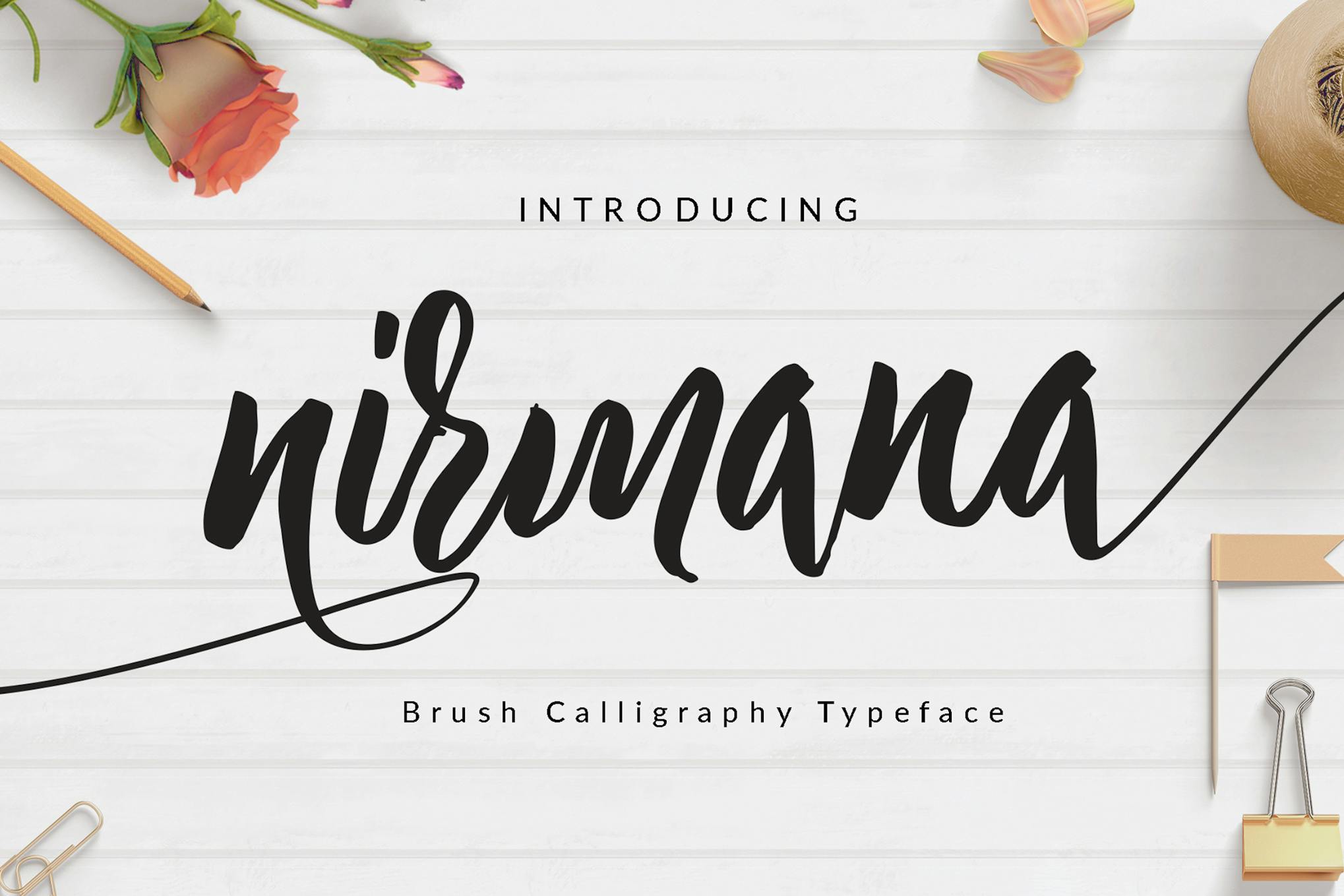
Nirmana Brush Font Wedding
The Nirmana Brush Font Wedding excels in artistic design applications including creative wedding invitations, artistic bridal branding, expressive ceremony logos, handcrafted product packaging, artistic business cards, creative portfolios, expressive greeting cards, artistic social media graphics, handcrafted event signage, and creative marketing materials. Its artistic brush style makes it perfect for projects requiring expressive elegance that communicates creativity and establishes artistic brand positioning with audiences seeking creative wedding experiences and handcrafted sophistication.
What makes the Nirmana Brush Font Wedding truly exciting is its exceptional ability to capture the artistic beauty and expressive elegance of creative weddings through masterfully crafted brush strokes. The font features flowing, brush-inspired letterforms with artistic flourishes and handcrafted proportions that create a distinctly creative appearance. Each character displays remarkable attention to artistic detail with expressive curves, creative connections, and handcrafted spacing that give text a beautifully artistic, hand-painted quality. The font's creative character and artistic rhythm create an atmosphere of expressive elegance while maintaining handcrafted sophistication and wedding authenticity.
The Nirmana Brush Font Wedding family typically includes regular weight with extensive character coverage, featuring uppercase and lowercase letters, numerals, punctuation marks, and international characters. The typeface often incorporates stylistic alternates, contextual ligatures, and artistic swashes that enhance its signature creativity. These additional elements provide designers with creative flexibility to customize text appearance and achieve more natural-looking expressive handwriting that reflects the font's artistic and handcrafted character.
This creative signature font distinguishes itself through its remarkable balance of artistic charm and sophisticated elegance. Unlike rigid or mechanical fonts that lack expressive appeal, Nirmana Brush Font Wedding embraces the power of artistic design to create handcrafted connections with creative wedding audiences. The font's artistic character makes it essential for creative wedding planners, artistic brands, and expressive celebration businesses where creating handcrafted wedding experiences and artistic memories is fundamental to success in creative wedding markets.